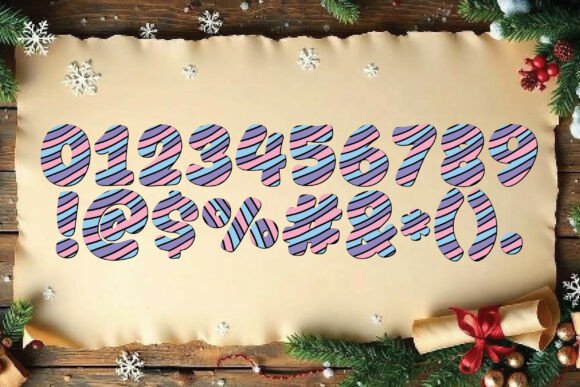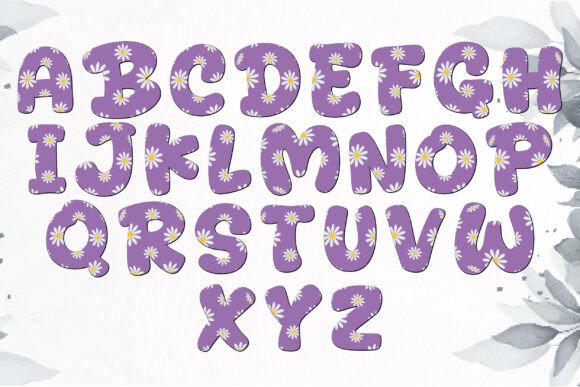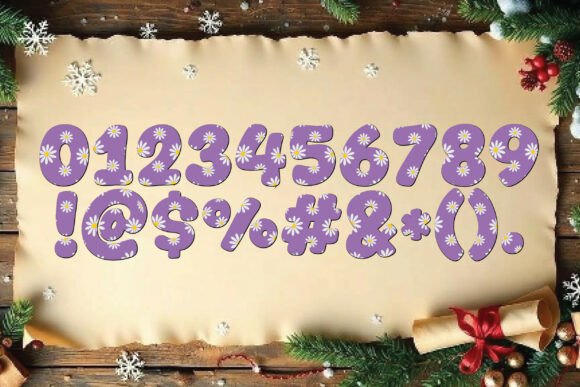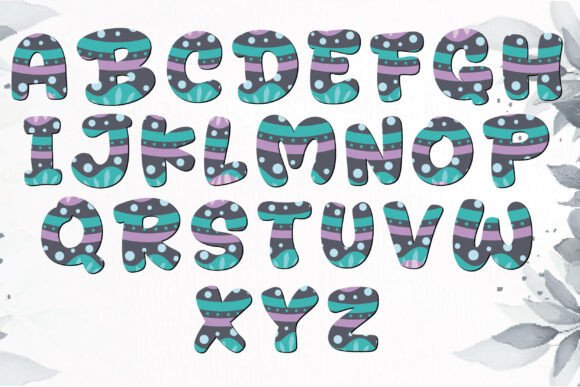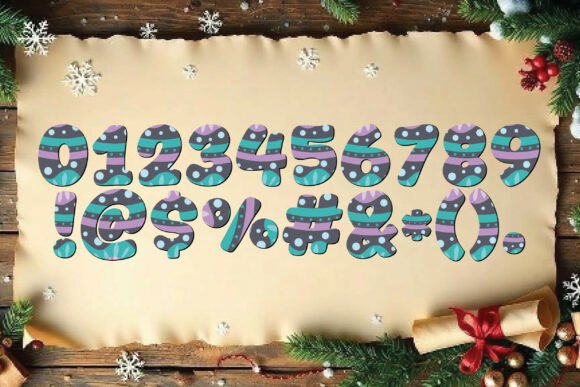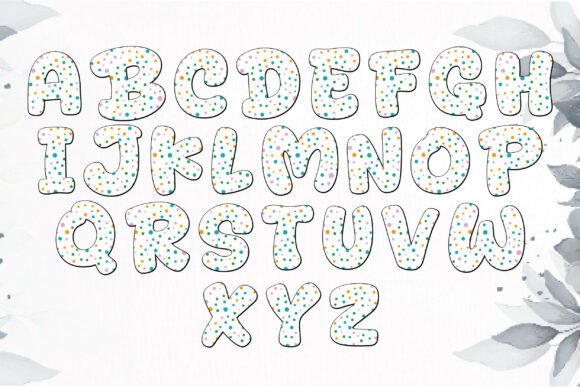
Spring into Creativity with the Fancy Easter Bundle Font
As the Easter season approaches, many of us find ourselves brainstorming ideas for festive projects that will bring joy to our loved ones. Perhaps you’re planning an Easter egg hunt, creating custom invitations, or designing a spring-themed banner. Whatever your project, the right font can make all the difference in setting the tone and atmosphere.
Enter the Fancy Easter Bundle Font – a comprehensive collection of five unique styles that will breathe life into your Easter projects. This charming bundle includes fonts that range from playful and decorative to clean and classic, ensuring that you have endless creative possibilities at your fingertips. With the Fancy Easter Bundle Font, designers can unlock their full potential and create truly show-stopping designs that will delight audiences of all ages.
- Unique Easter-Themed Characters: The font bundle includes over 100 unique Easter-themed characters, such as Easter eggs, bunnies, and spring flowers, adding a playful touch to any design.
- High-Quality Graphics: The font features high-quality graphics with intricate details, making it perfect for creating eye-catching designs, invitations, and packaging.
- Easy Customization: The font is designed to be easily customizable, allowing designers to adjust the size, color, and style of the Easter-themed characters to fit their design needs.
Fancy Easter Bundle Font Review
Overall, I was excited to dive into the Fancy Easter Bundle Font, but my experience was a mixed bag.
- The font does have a charming, whimsical feel that’s perfect for spring-themed designs.
- The bundle includes a range of weights and styles, making it easy to mix and match for a cohesive look.
- The font is highly customizable, with options for color and size adjustments.
- The font’s overall design feels a bit too “cute” for more serious or professional designs.
- The weight and style options can feel overwhelming, making it difficult to decide which one to use.
Overall, I think the Fancy Easter Bundle Font is a solid choice for designers looking to add a touch of whimsy to their spring-themed designs. However, it may not be the best fit for more serious or professional projects. With a bit more polish and a user-friendly manual, this font could truly shine.
For best results, use Fancy Easter Bundle Font in conjunction with other spring-themed elements, such as pastel colors and floral patterns.
Experiment with different font sizes and styles to create visual interest and emphasis.
Fancy Easter Bundle Font is perfect for:
- Easter invitations and cards
- Spring-themed social media graphics
- Wedding and event invitations
- Gift tags and wrapping paper